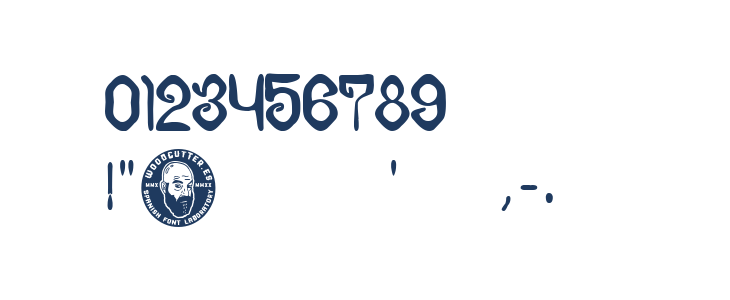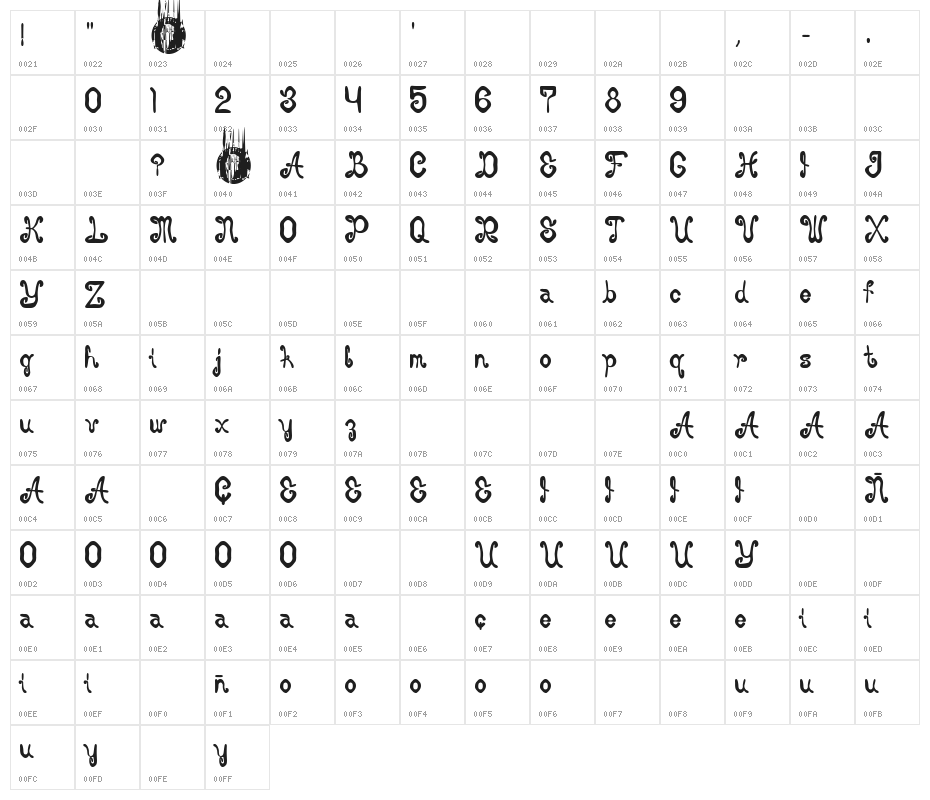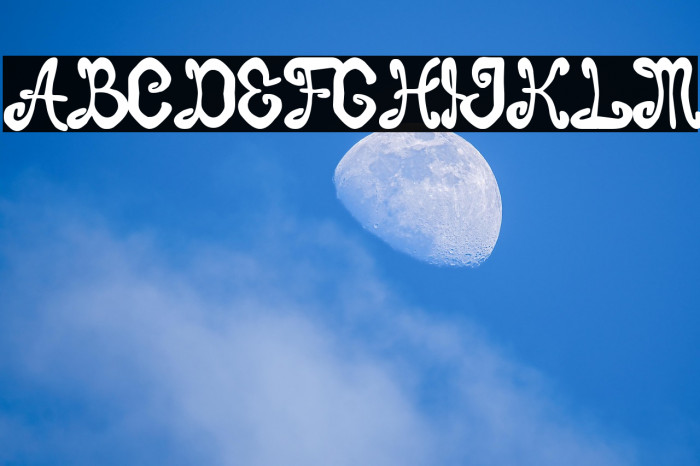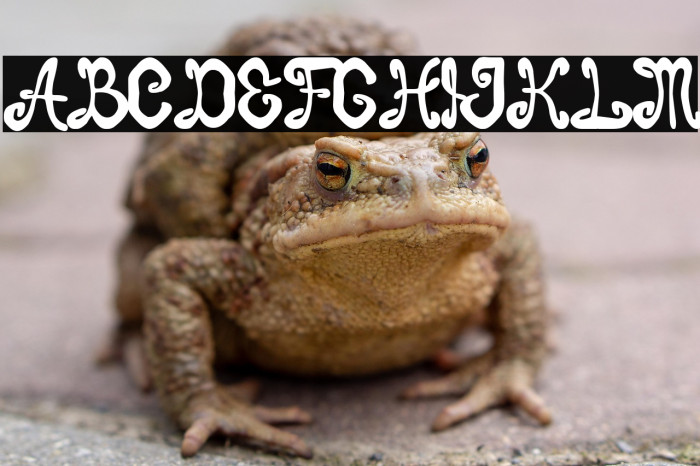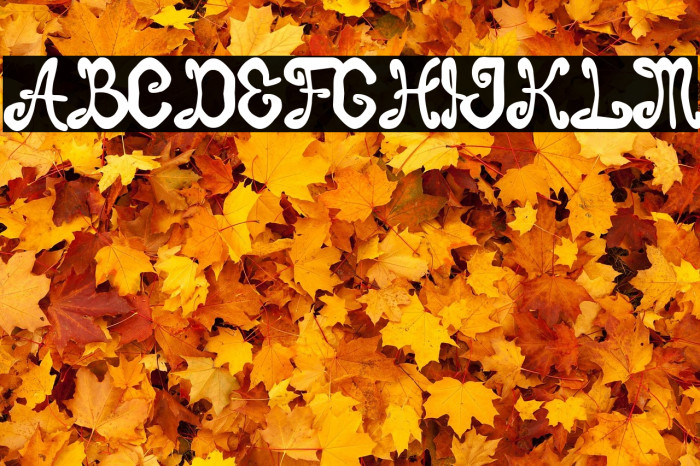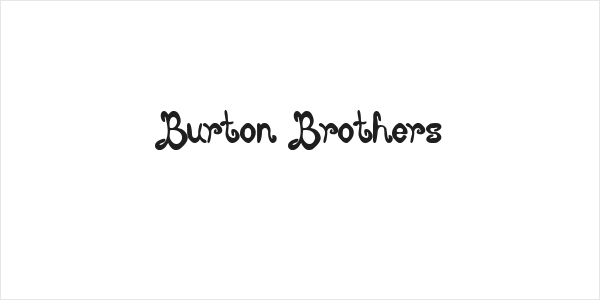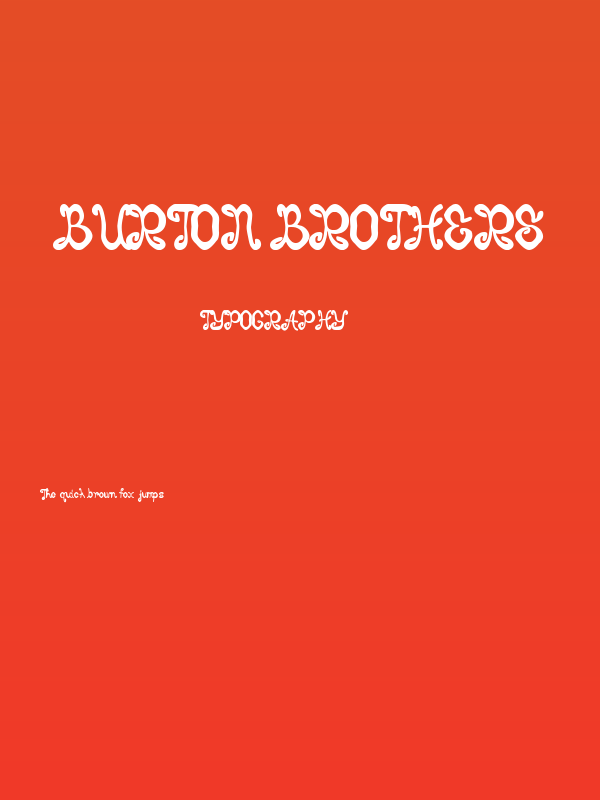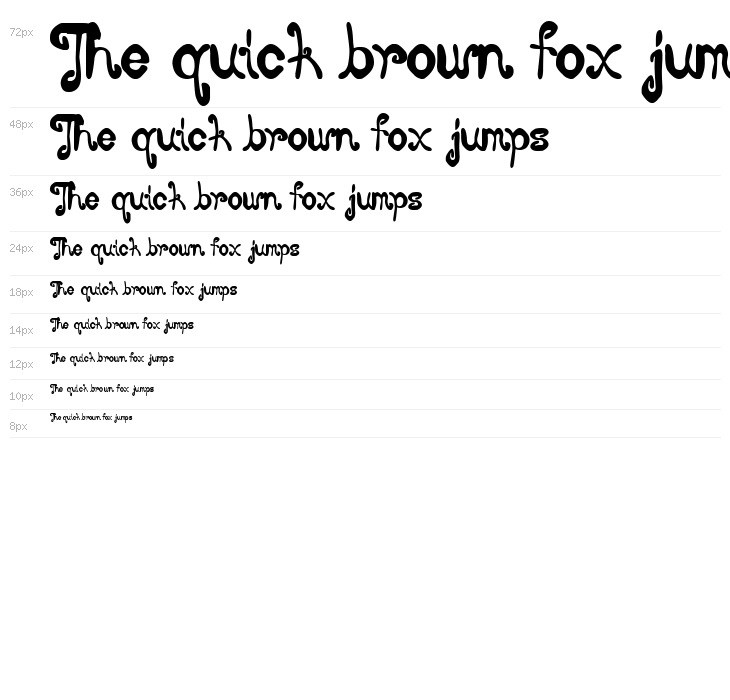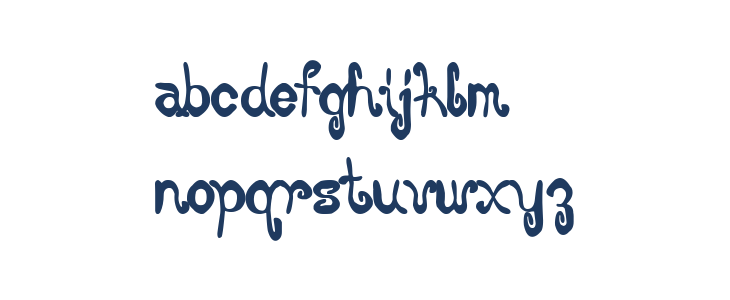
Burton Brothers Font
Burton Brothers Description
This font features a playful and whimsical design, characterized by its bold, curvy lines and decorative elements. Each letter is uniquely crafted with an artistic flair, incorporating loops and swirls that give it a lively and dynamic appearance. The uppercase letters are particularly ornate, while the lowercase letters maintain a consistent style with a slightly more subdued flair. The numerals and special characters follow the same decorative theme, ensuring a cohesive look across all characters. This font's distinct style makes it stand out, offering a unique visual appeal that is both eye-catching and memorable.
| Proposed Projects | Ideal for creative projects such as children's book covers, playful branding, event invitations, and artistic posters. |